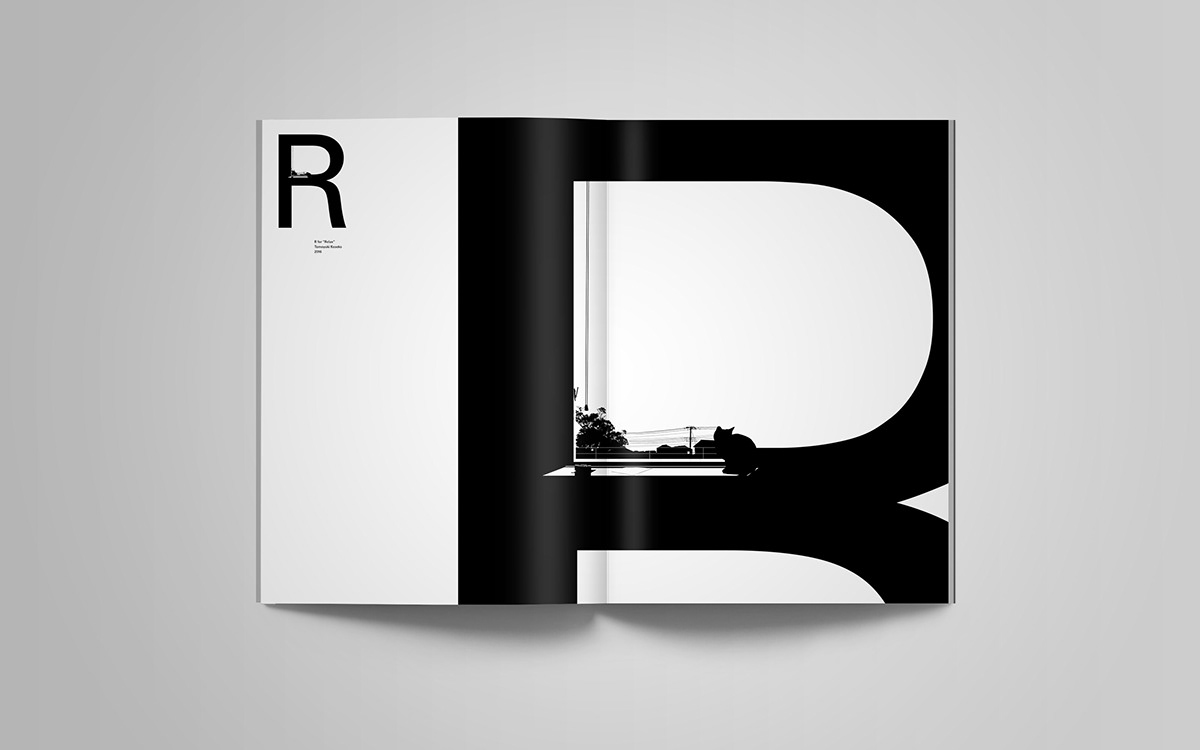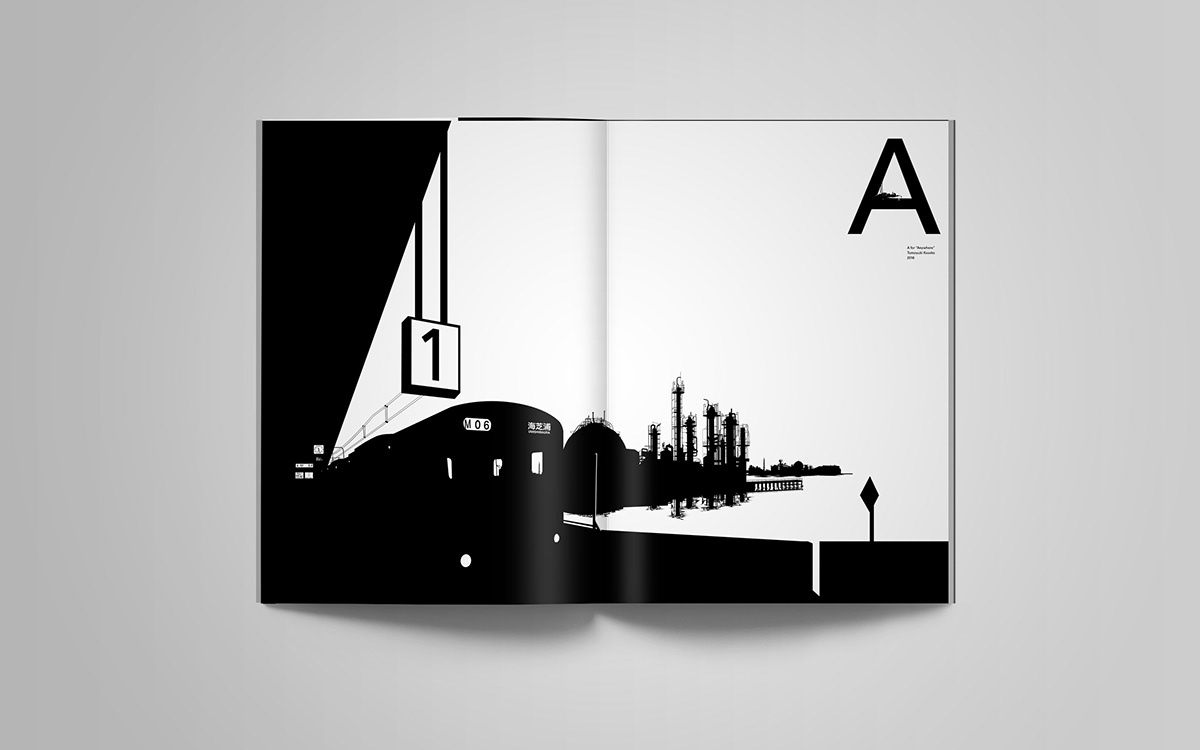
Gitai Magazine ISSUE #02:
FONT = SUNSET
This art-book contains samples of the typeface “Sunset in Letters”.
I have incorporated sunsets into the font design.
At first glance, it is just a normal typeface, but if you look closely you will see a silhouette of sunset.The impression you get changes depending on where you stand.
At first glance, it looks just a typeface....
The silhouette of sunset appears in the details